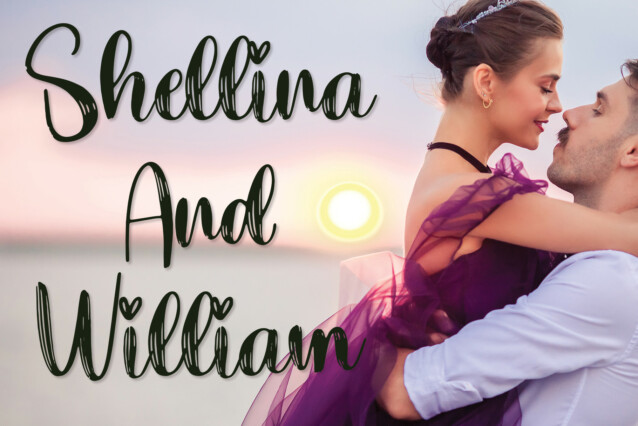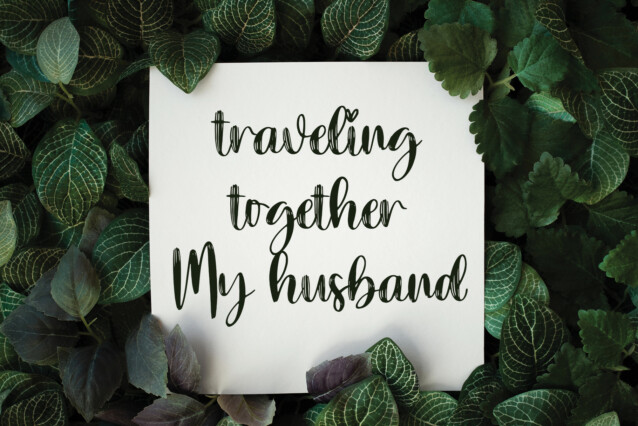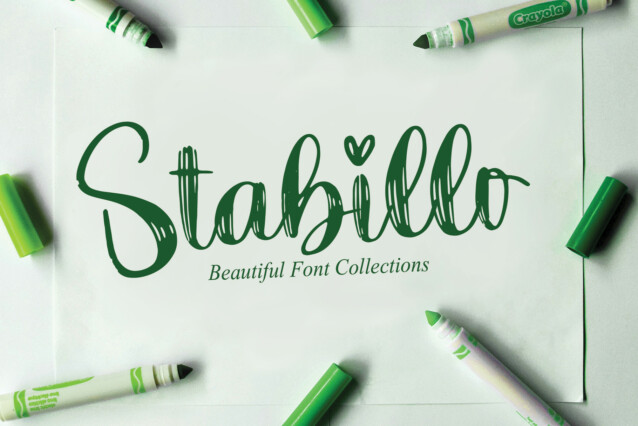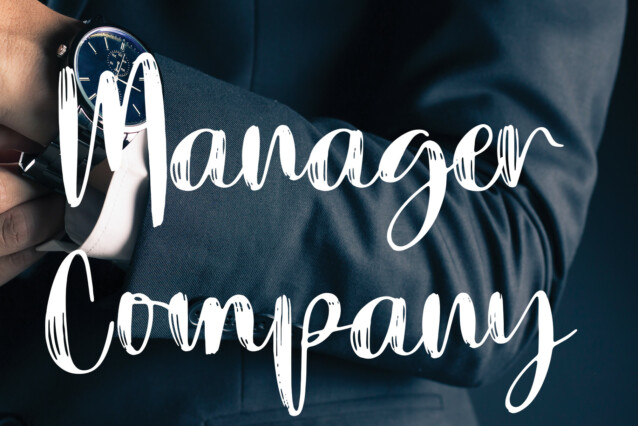
Thick Brush Typeface
Thick Brush Typeface is a lovely script font with a shaded effect. Its latest style letters are perfect for wall displays, wedding invitations, social media post logos, advertisements, product packaging, product designs, labels, photography, watermarks, invitations, stationery, and any project that requires taste handwriting.